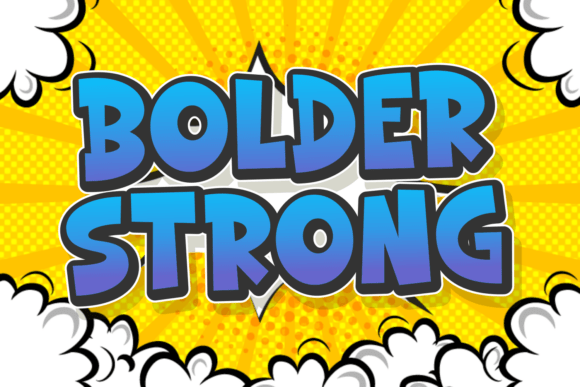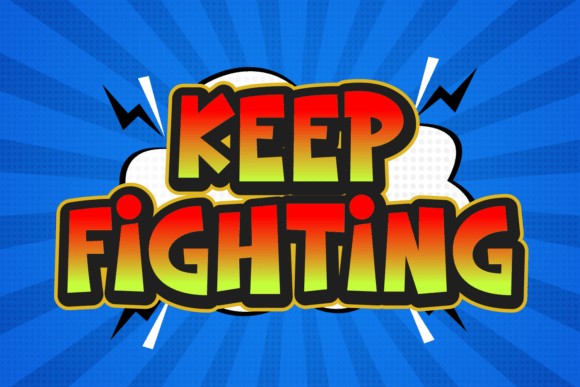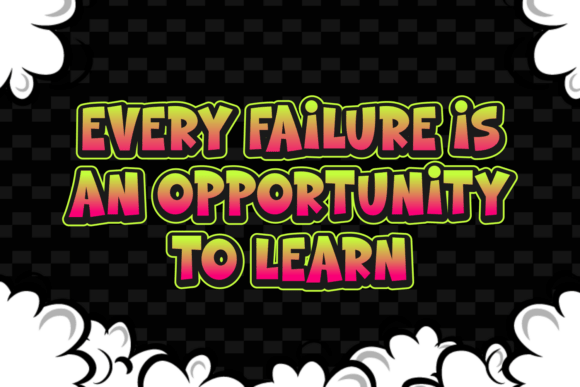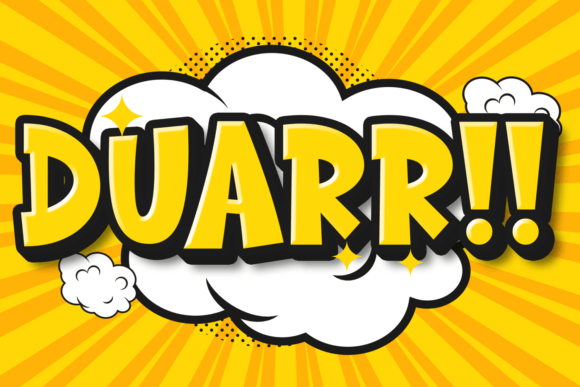
The Perfect Font for Your Next Heroic Project
Have you ever stared at a blank page, trying to come up with the perfect font to match your creative vision? You know, that moment when the words just won’t flow, and all you need is a spark to set your imagination ablaze? That’s exactly where the Bolder Strong Font comes in – a game-changing display font that’s sure to breathe life into your designs.
With its bold, outlined style and playful letterforms, this font is a natural fit for cartoons, gaming designs, kids’ projects, posters, and eye-catching headlines. Whether you’re a seasoned designer or just starting out, the Bolder Strong Font is a valuable addition to your toolkit, guaranteed to add a punch of excitement to your work.
- Unique Characteristics: Bolder Strong Font features a distinctive, bold, and strong design, making it ideal for headlines, titles, and other attention-grabbing applications.
- Font Weight and Style: The font has a range of weights, from Light to Extra Bold, allowing designers to choose the perfect style to suit their needs.
- Language Support: Bolder Strong Font supports a wide range of languages, including Latin, Cyrillic, and Greek, making it a versatile choice for global applications.
- Hinting and Kerning: The font has been carefully hinted and kerned to ensure optimal display and printing quality, even at small font sizes.
Bolder Strong Font Review
I recently had the chance to work with the Bolder Strong Font, and here are my honest thoughts.
- The font’s bold and strong aesthetic is perfect for making statements in headings and titles.
- The font’s legibility is surprisingly good, even at smaller font sizes.
- The font’s versatility allows it to work well in a variety of design contexts, from print to digital.
- The font’s wide range of weights and styles provides ample options for customizing the look and feel of your design.
- The font’s boldness can sometimes feel overpowering, making it difficult to read at large font sizes.
- The font’s limited ligatures and swashes can make it feel a bit sterile and lacking in personality.
- The font’s compatibility with certain operating systems and software can be a bit spotty.
Overall, I think the Bolder Strong Font is a solid choice for designers looking for a bold and strong font. While it has some limitations, its versatility and wide range of weights and styles make it a great option for a variety of design contexts. With a bit of finesse and attention to detail, I think the Bolder Strong Font can be a real game-changer in the right projects.
Tips for Getting the Most Out of Bolder Strong Font
Use Bolder Strong Font to create attention-grabbing headlines and titles.
Combine Bolder Strong Font with other fonts for a unique and visually appealing design.
Experiment with different font sizes and styles to create a bold and striking visual effect.
Use Bolder Strong Font for:
Headlines and titles
Call-to-actions
Brand logos and identity
Product labels and packaging